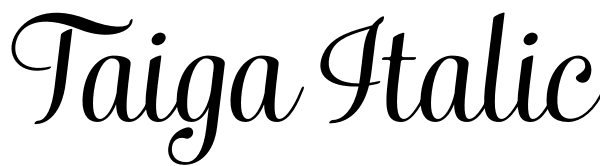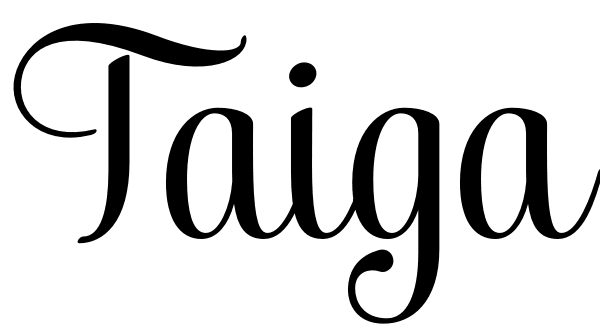
Taiga
Taiga is a classy upright script. It’s closely related to Mishka yet different: while Mishka is playful Taiga is more elegant and fancy. Click on Swash, Contextual or Stylistic alternates in any Open Type savvy application for gorgeous display...